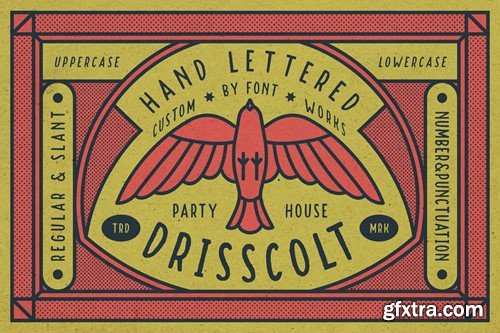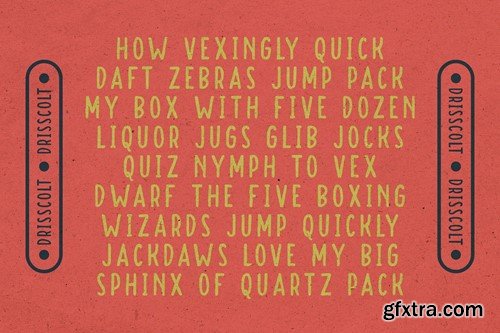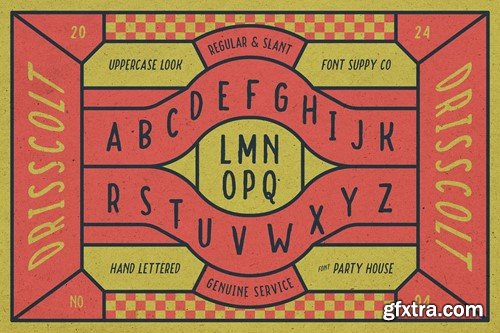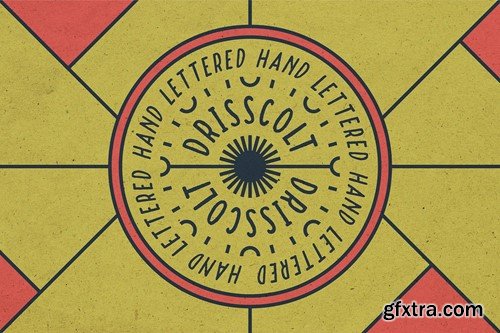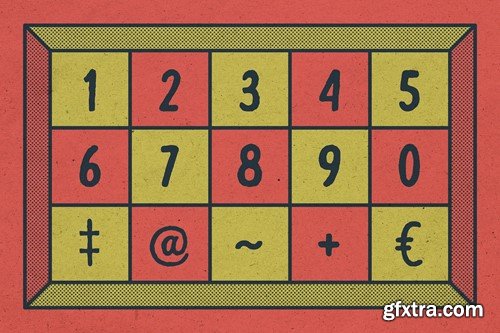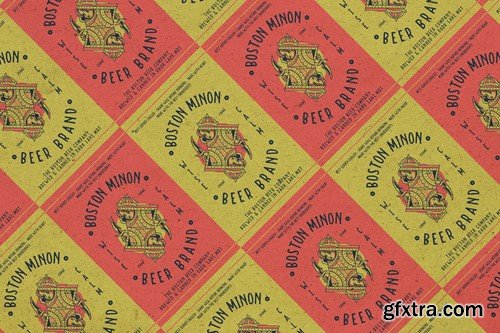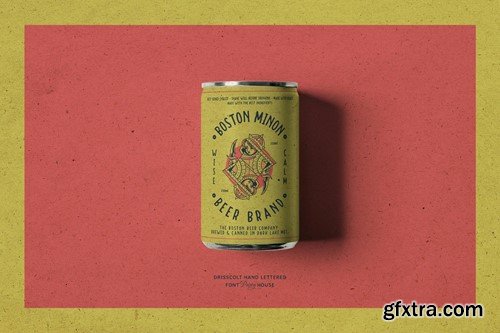
Drisscolt - 手写体字体 ABCTU85
Drisscolt Hand Lettered font is inspired by vintage designs with rough lines. Make the classic impression of this font stand out more. It is suitable for creating vintage designs such as logo posters, merchandise, clothing, brochures, business cards and others. It can be accessed by using Open Type savvy programs like Adobe Illustrator and Adobe InDesign. features can be accessed by using Open Type save programs such as Adobe Illustrator, Adobe InDesign, Adobe Photoshop, and Corel Draw X. And this has given PUA unicode font (specially coded fonts). So that all the alternate characters Easily can be accessed in full by a Craftsman or designer. -- Features: --- HOW TO ACCESS ALTERNATE CHARACTERS Open Glyphs Panel: --- Not included: Product mockup, design template and textured background. Hopefully this font can help your work, enjoy! Please contact us if you have any question! Thank You!